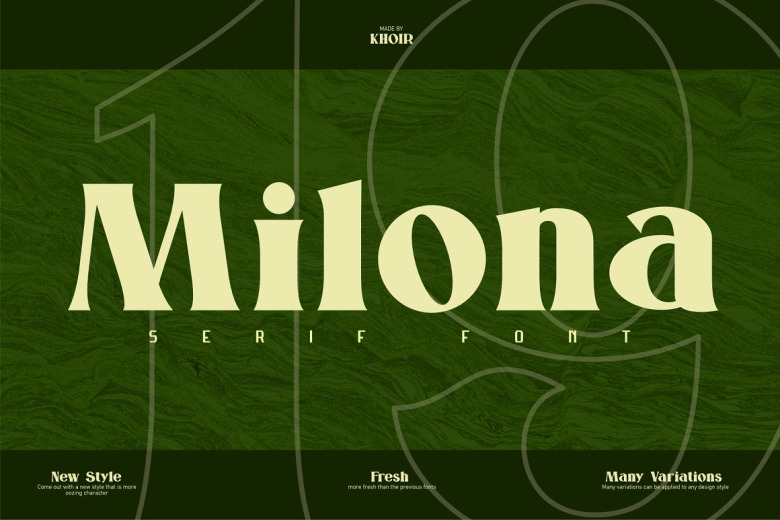
Milona Font
The sure hit is Milona – a serif typeface that combines old-time lettering with a clean, modern style. Tables, designed as a font pair, are typically followed by a series of alternatives within each letter, allowing for a large number of design options. Popular among publishers, books and magazines, packaging, branding, and logos, posters, T-shirts, postcards, and other items.
Milona Serif Font